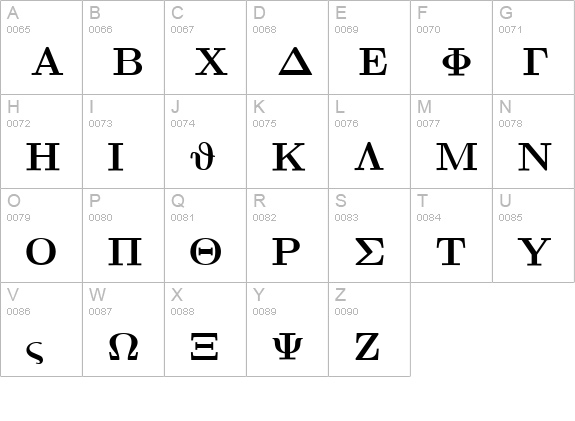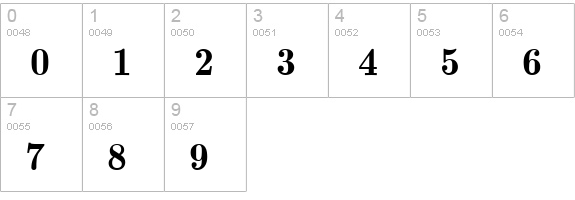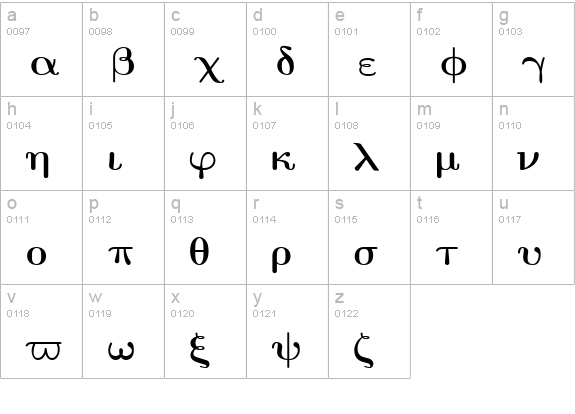
Euclid Symbol Bold Font Details
Euclid Symbol Bold is a strong, high-contrast variant in the Euclid typeface family \xE2\x80\x94 well suited to headlines, attention-grabbing titles, and strong calls-to-action.
Euclid Symbol Bold font is a sleek and modern typeface that exudes sophistication and elegance. Its bold and striking design makes it perfect for adding emphasis and style to your projects. With its clean lines and sharp angles, Euclid Symbol Bold demands attention and leaves a lasting impression. The best part? Euclid Symbol Bold font is available for free download at FontsMarket.com. Whether you're working on a professional project or personal design, this versatile font is sure to elevate your work to the next level. Embrace the power of Euclid Symbol Bold and make a statement with your typography today!